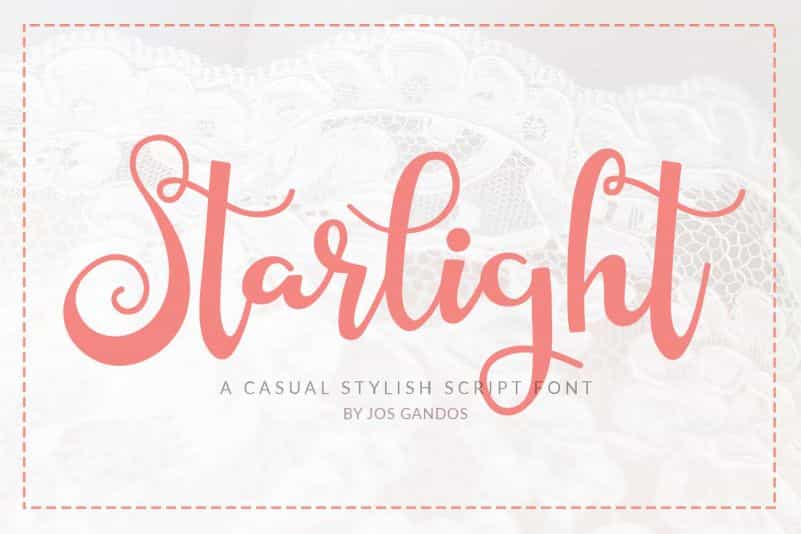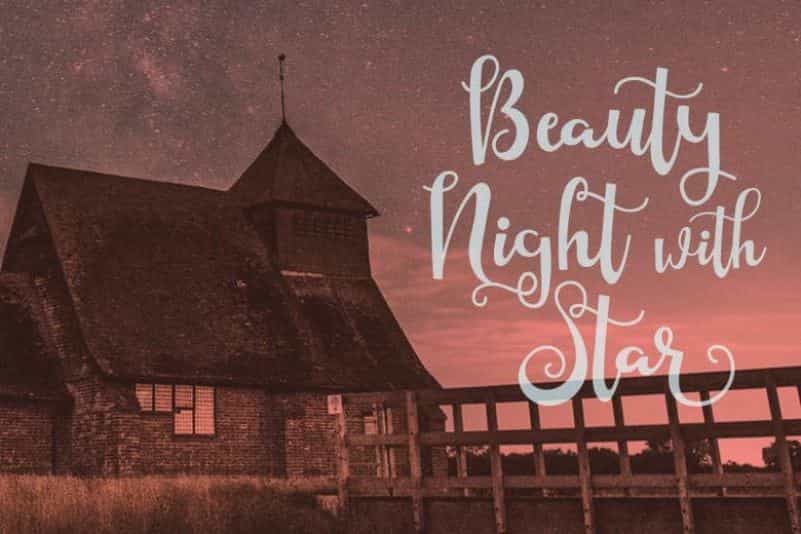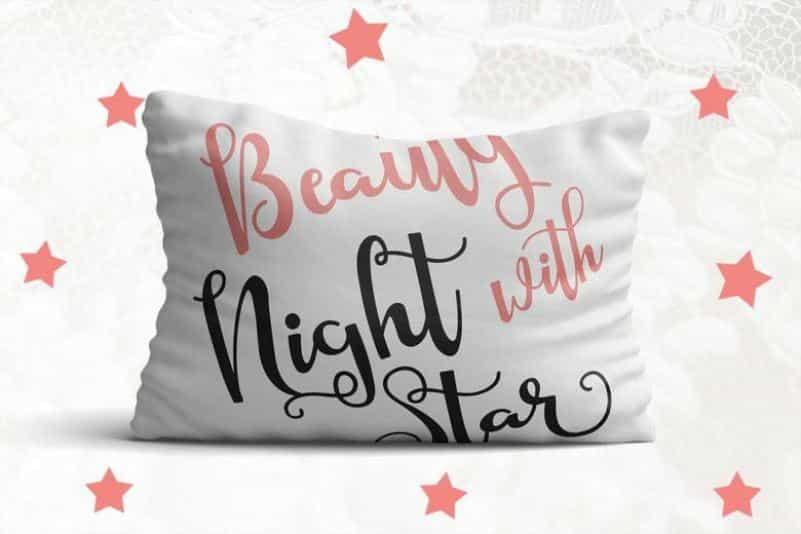
Hi Font Lover!Introducing Starlight font. A casual yet stylish script font. You can have a go at it by type in the name you want. It is designed and distributed by jos gandos. Starlight Script Style is a contemporary and a fresh calligraphy script with a natural style. This font will give your design an elegant, natural and stylish look.